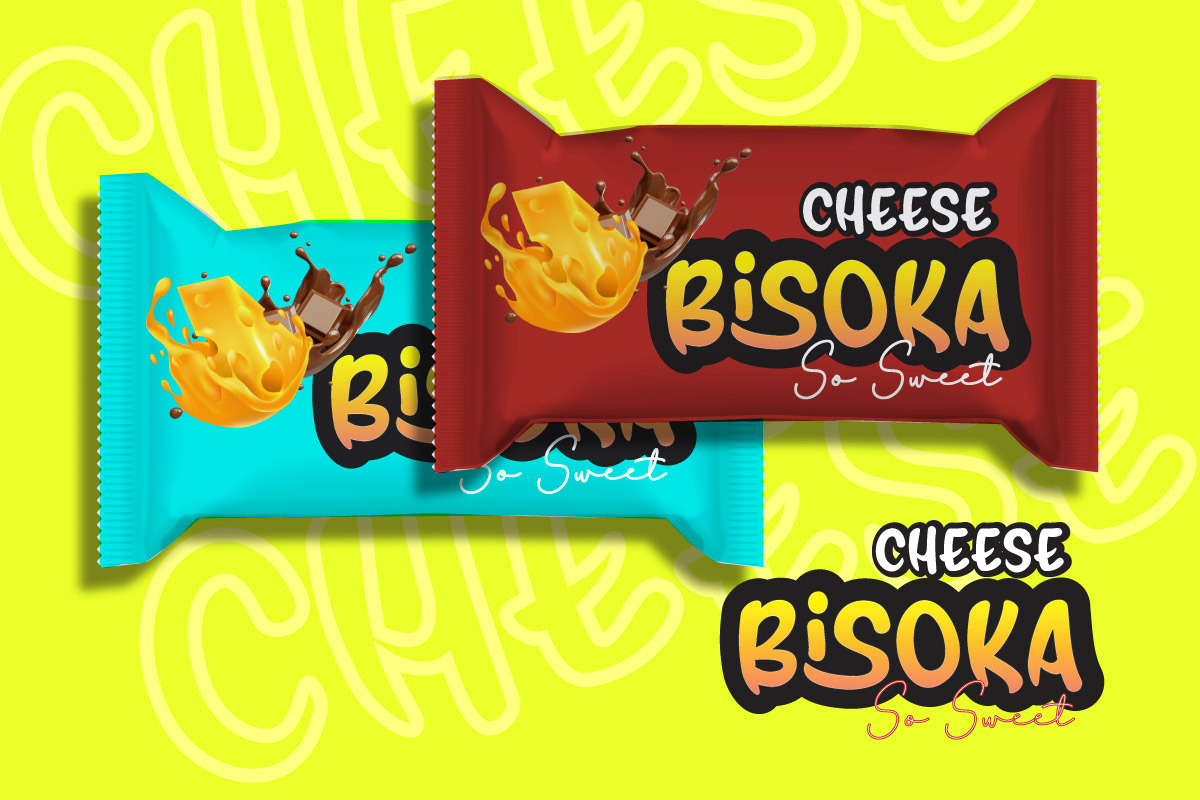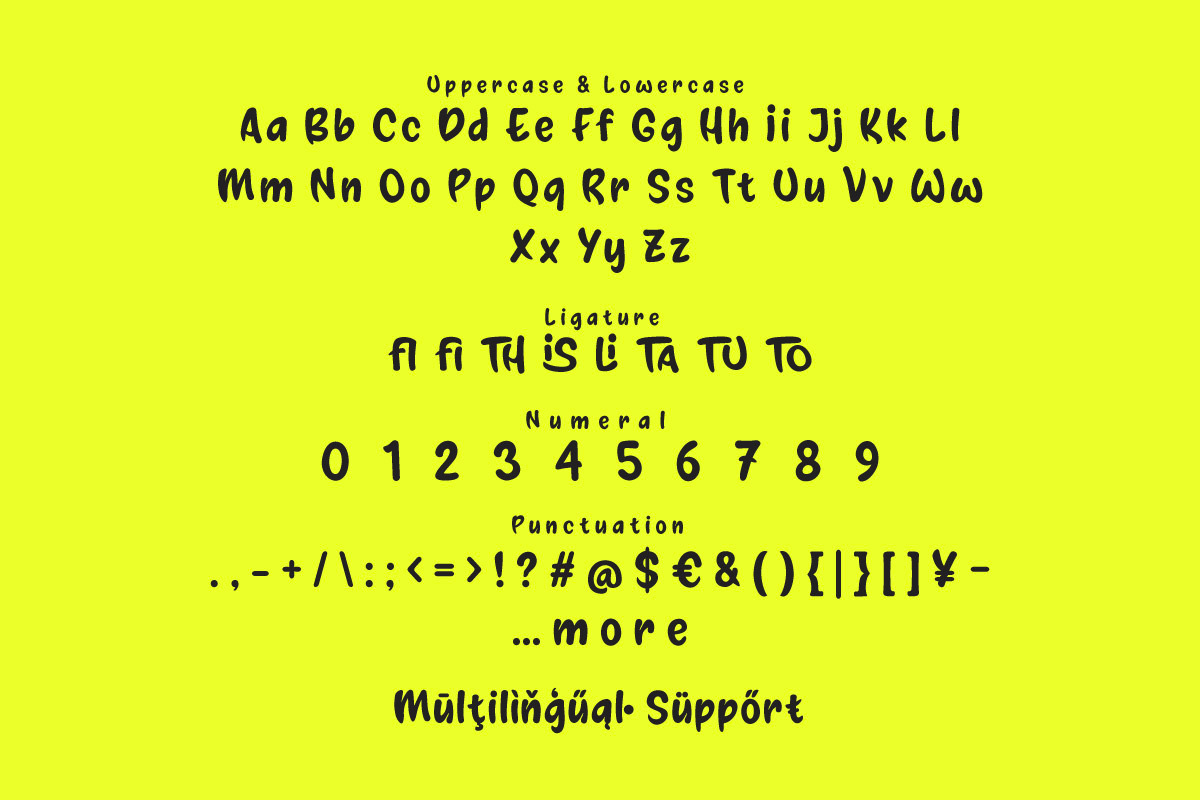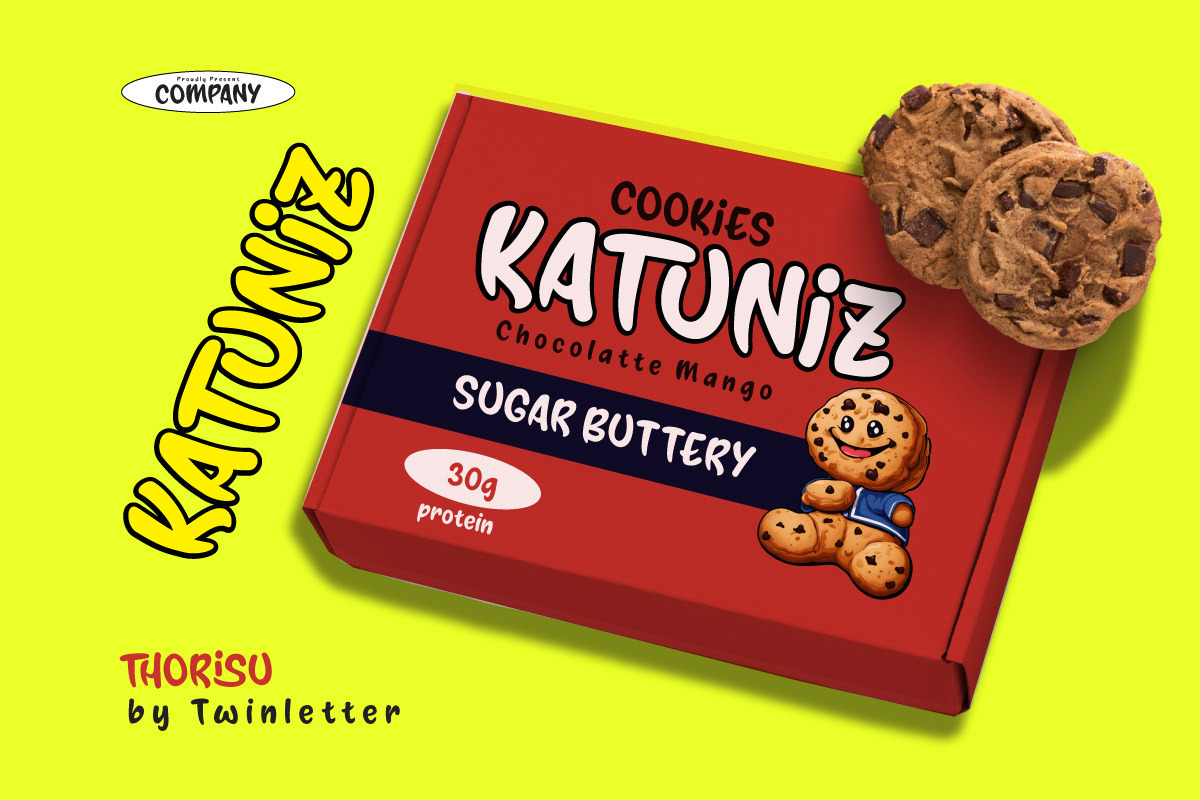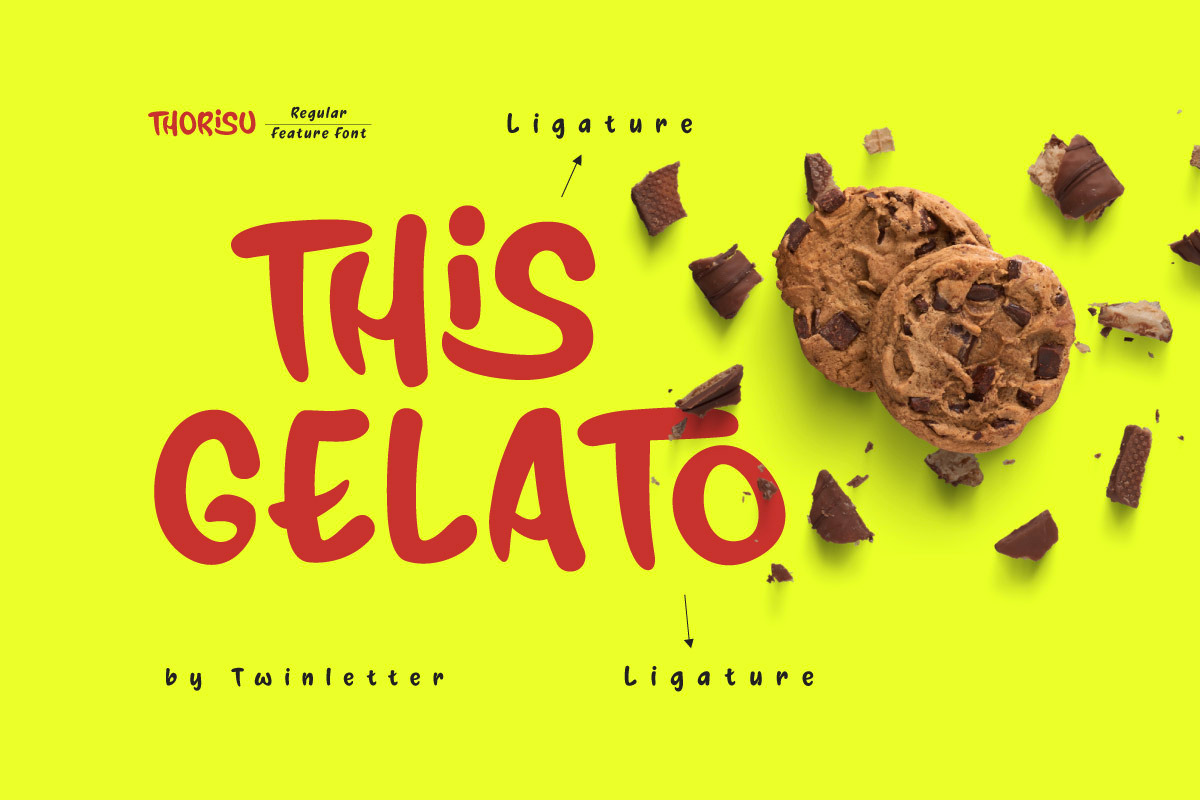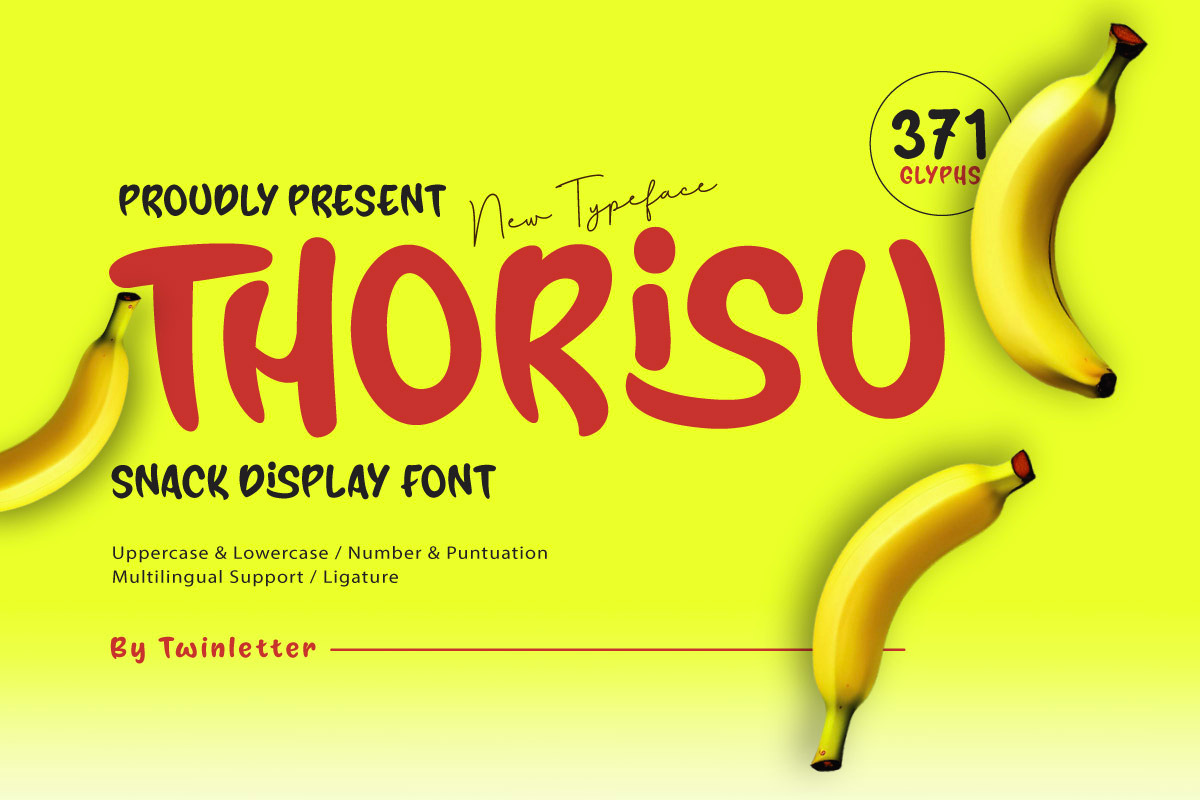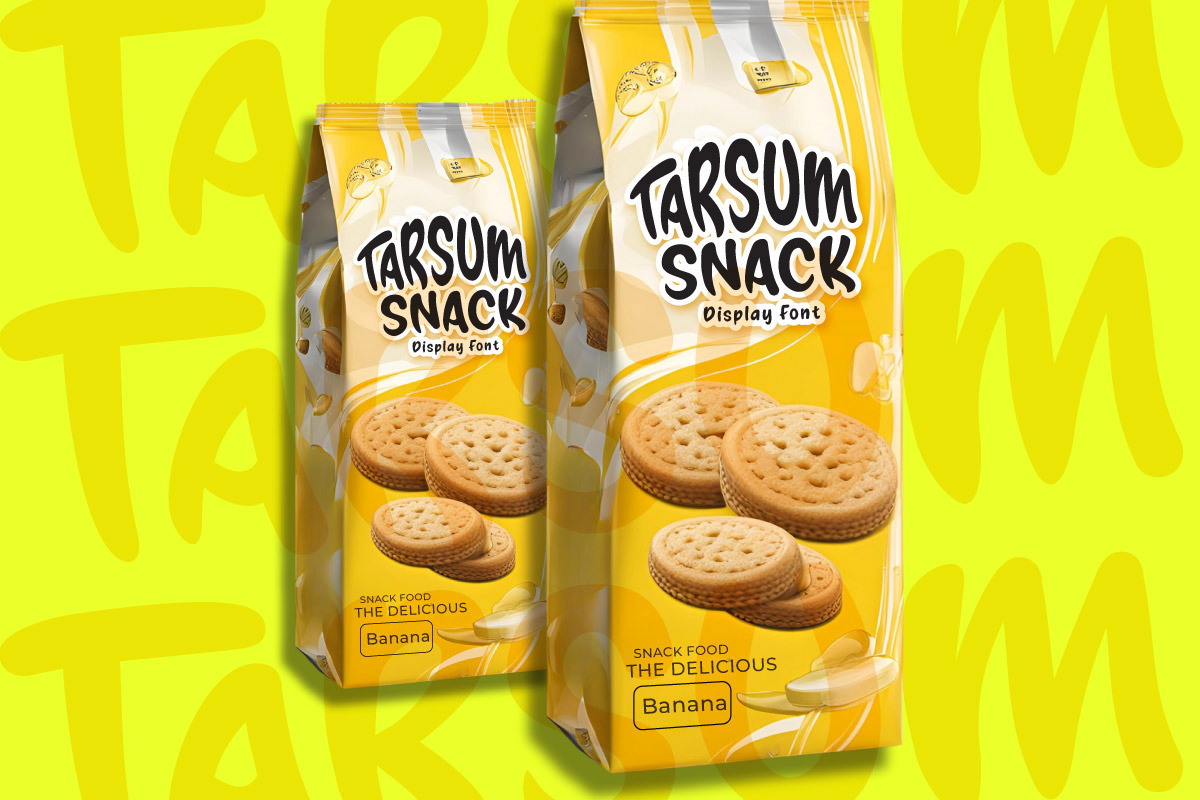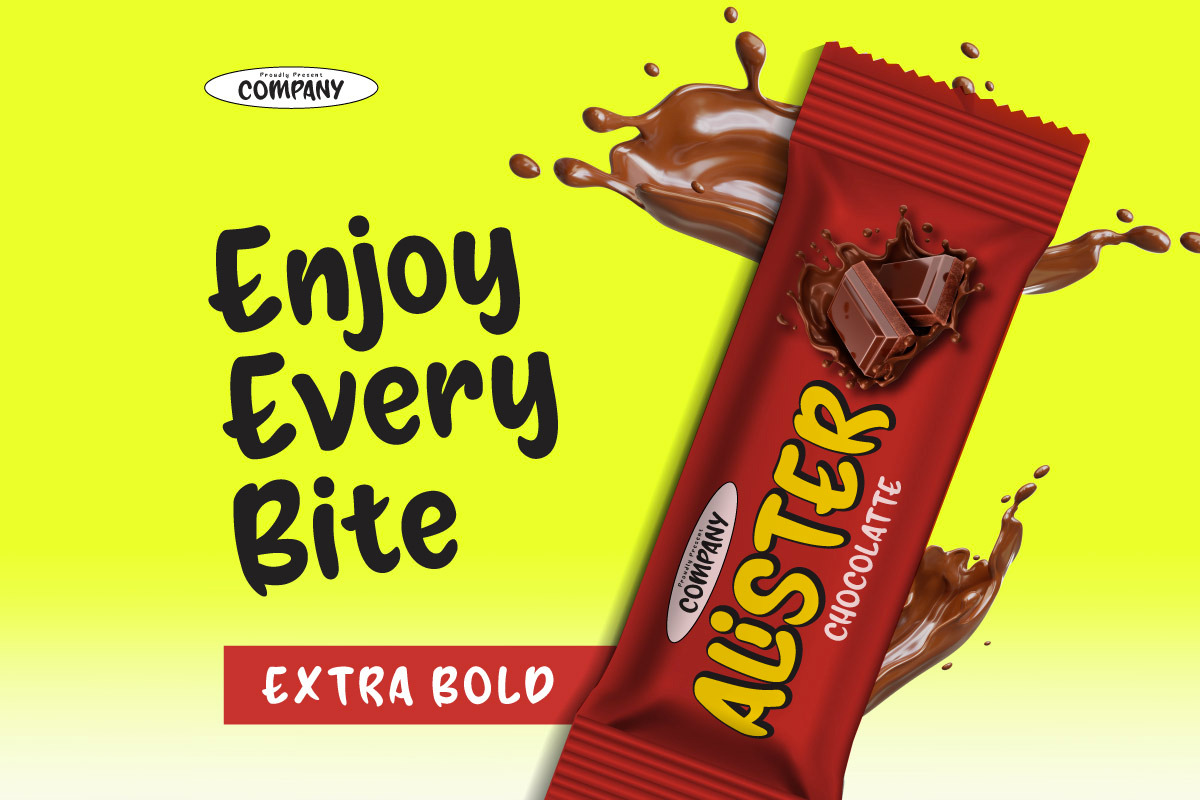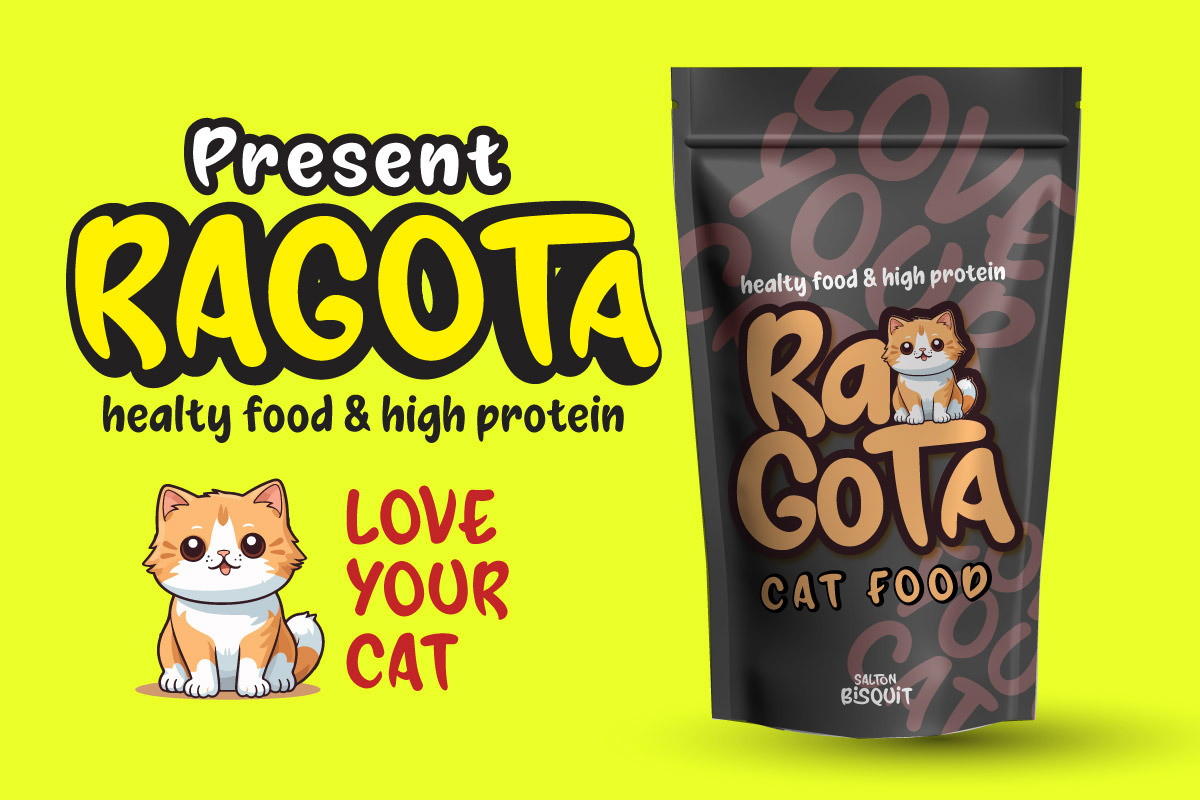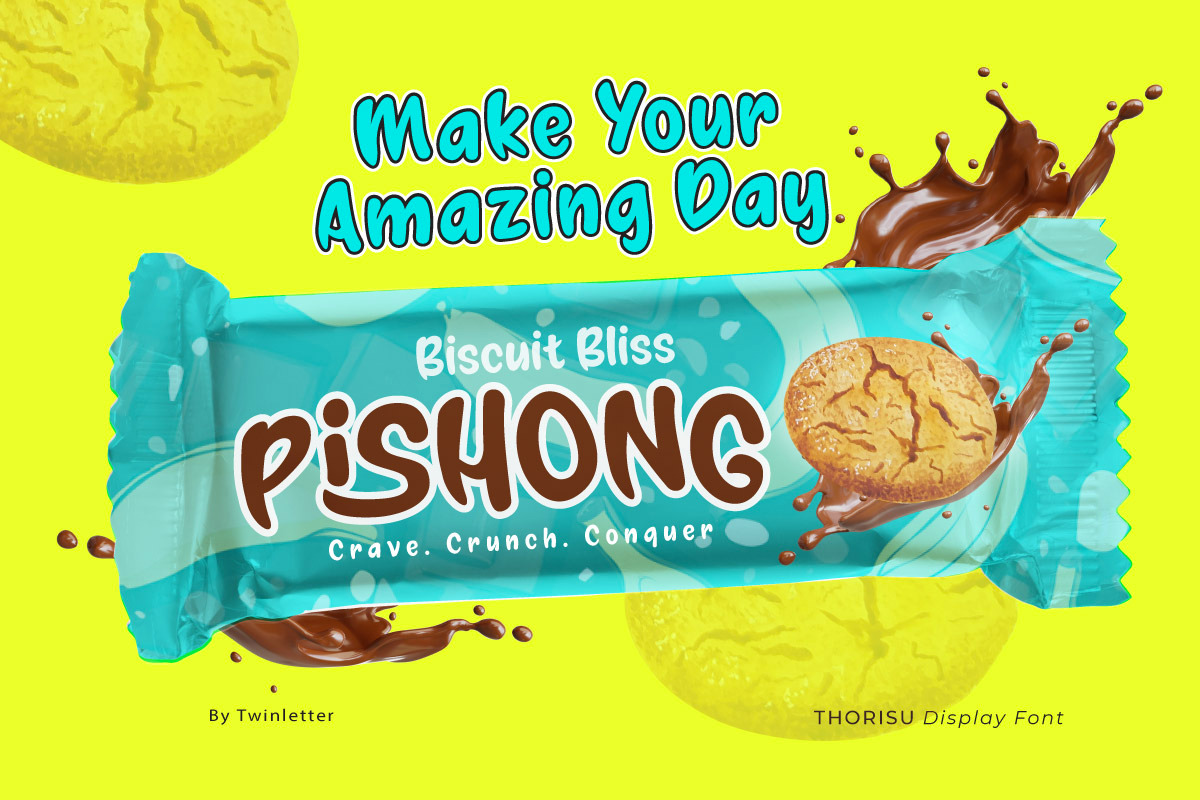
Thorisu - Snack Display Font
Thorisu is a display font specifically designed to promote snack or snack products. This font has a strong, bold, and curved character, giving it a fun, witty, and cheerful impression. The design is inspired by the shape of a banana, making this font very suitable for branding or packaging related to fruit or healthy food.
Thorisu is available in uppercase, lowercase, numbers, punctuation, and supports multilingualism and ligatures, giving it the flexibility to be used for a variety of design needs. Its relaxed yet eye-catching style makes it stand out on labels, advertisements, or snack promotions. The cheerful combination of red and yellow and the banana illustration make the whole design look appetizing and adorable. Thorisu is the right font choice for creating fresh and attractive branding for snack products that want to convey a healthy and fun impression.
- Fonts include Multilingual support